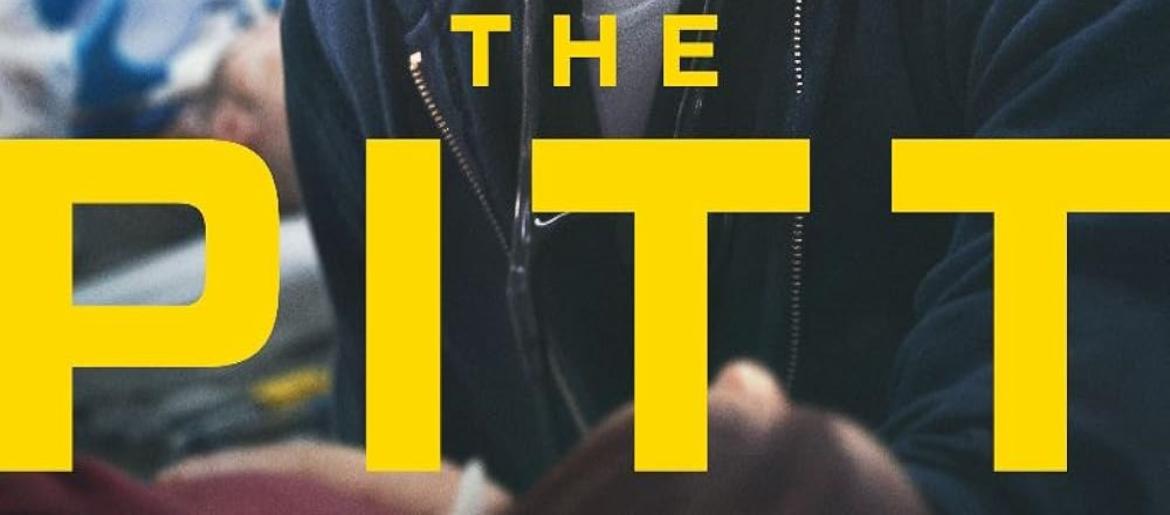
The Pitt Font
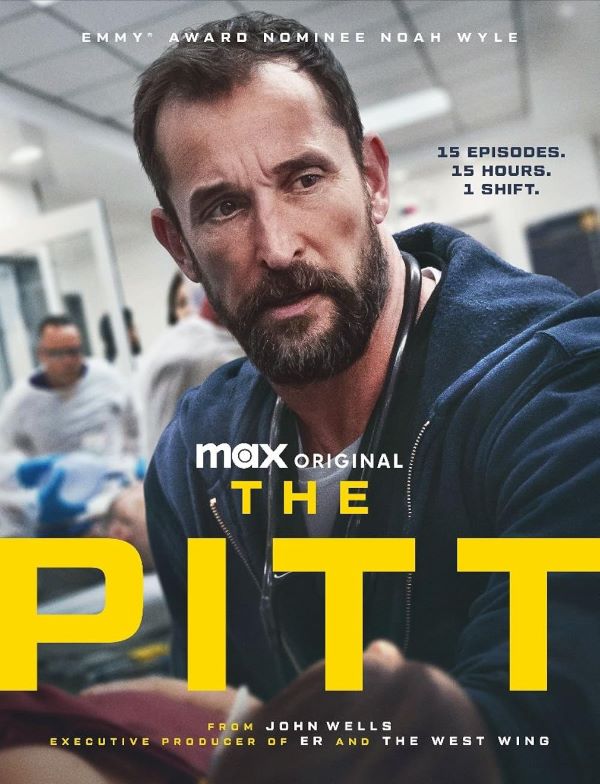
What Font is The Pitt?
The Pitt font is probably Bank Gothic Medium, a bold and geometric typeface often used in titles and logos for its strong and modern appearance. While Bank Gothic Medium is a premium font, we’ve found a free alternative font that captures the same sleek, industrial aesthetic—perfect for fans looking to recreate the movie’s distinctive look. This free version maintains the squared edges and technical precision that make the title stand out on screen.